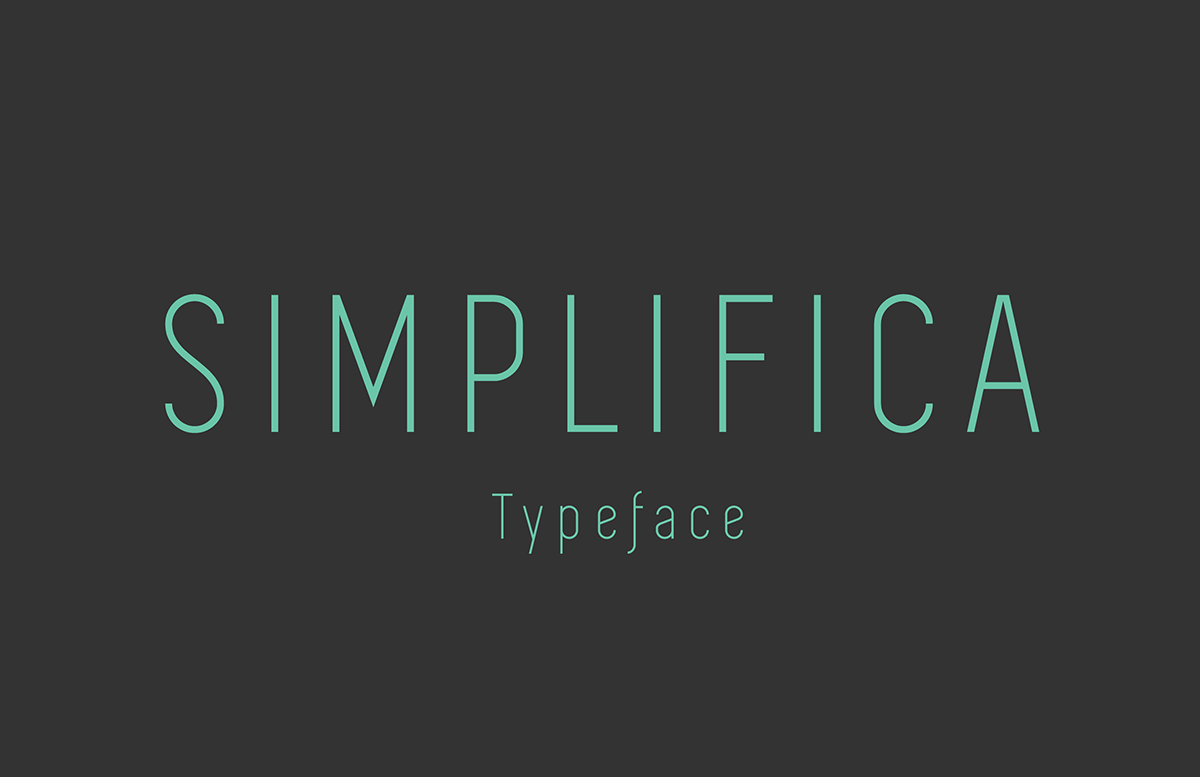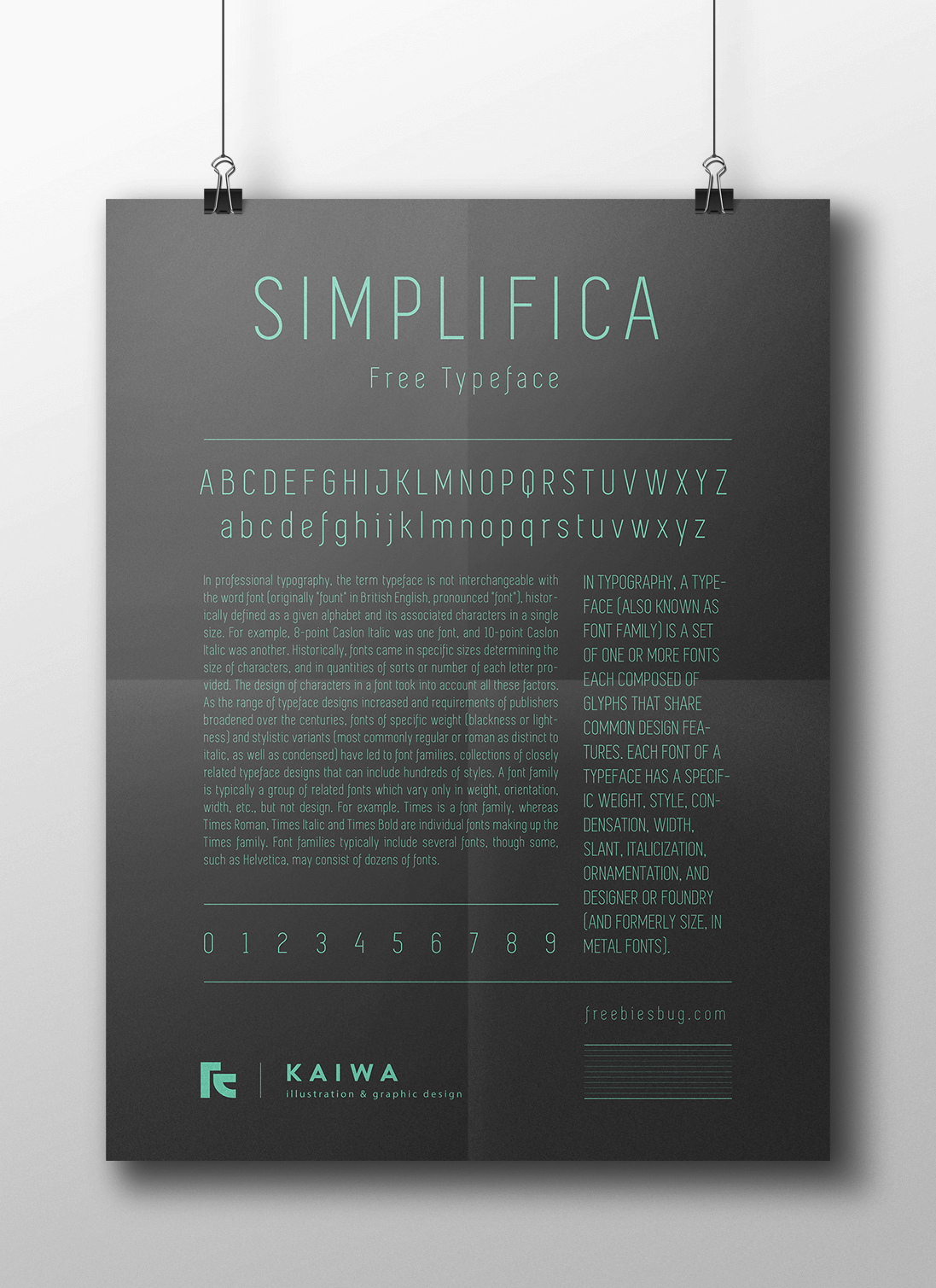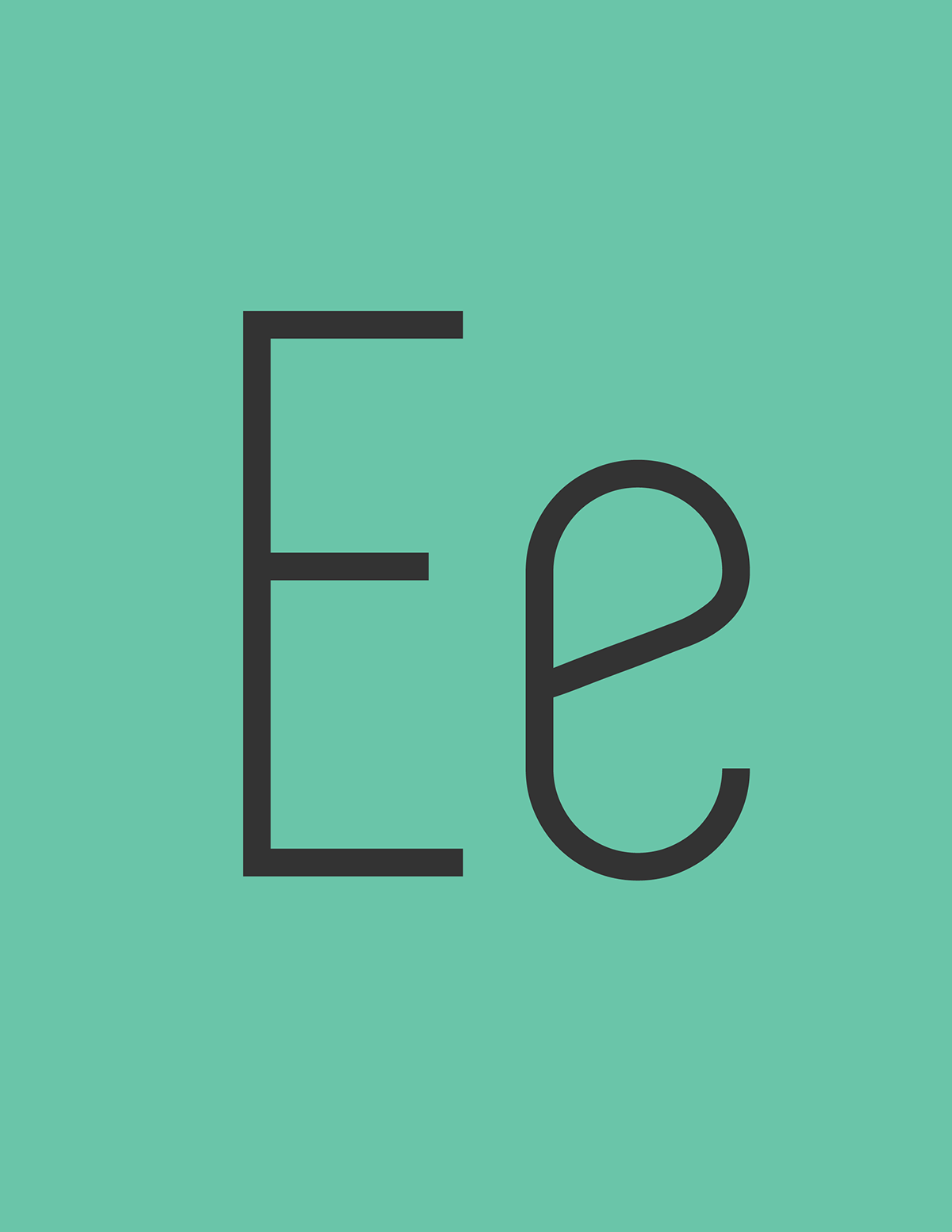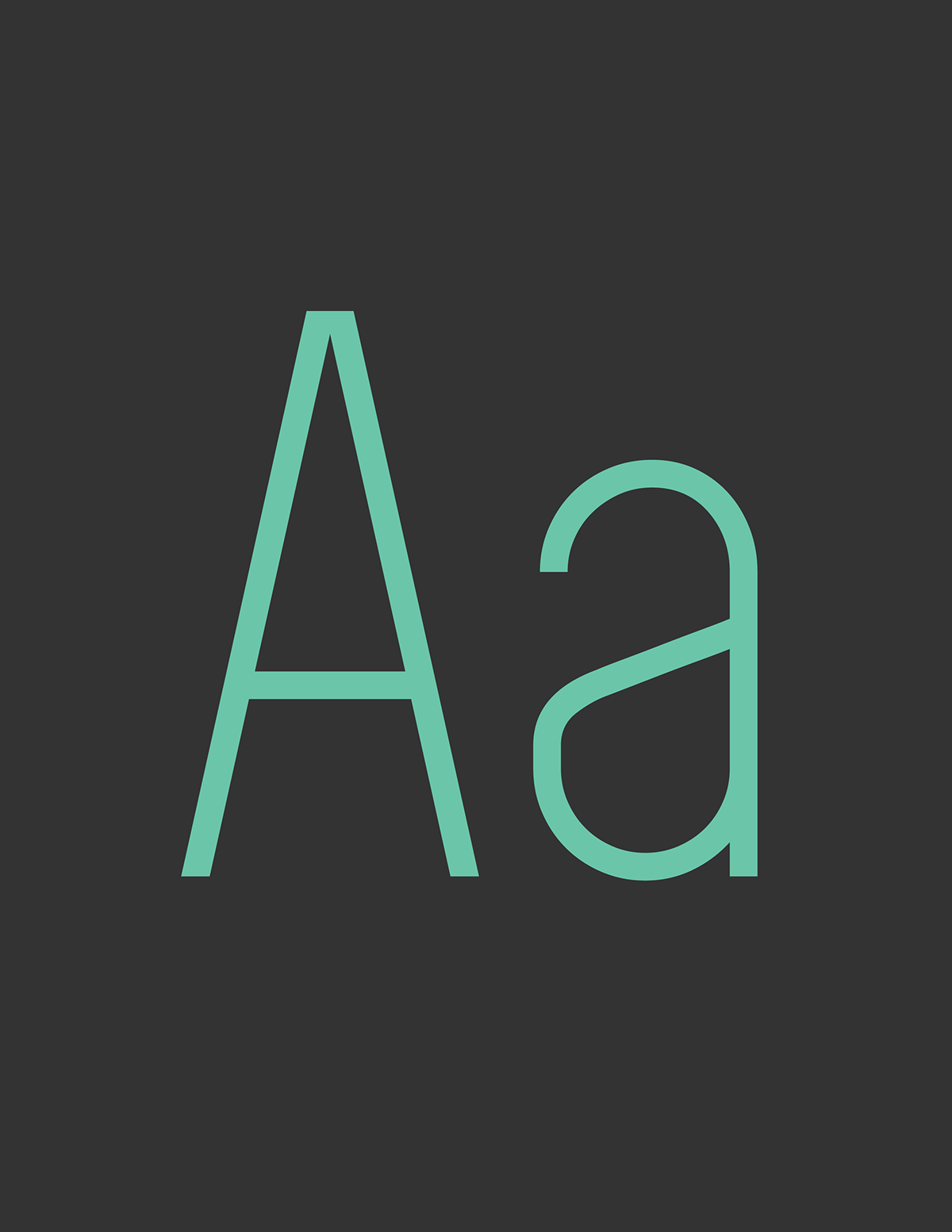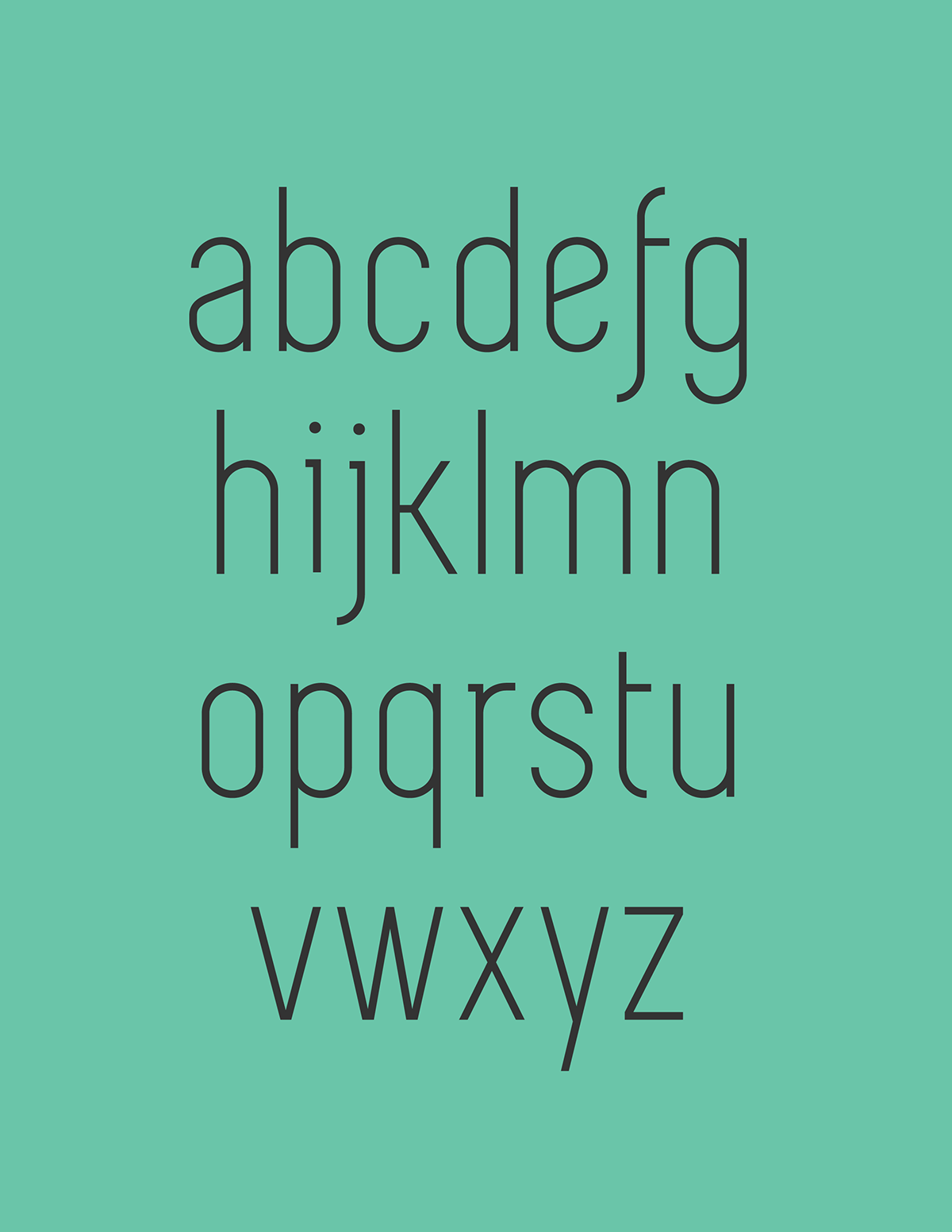
Simplifica Free Font
Simplifica free font, has the beauty of simplicity in a form of typeface. This elegant sans serif font will be great for architecture, design projects, fashion or others where minimal and clean styles are welcome. The font is slightly condensed with enough space to breathe supported by thin lines width. Beautyfull resource, another must have.